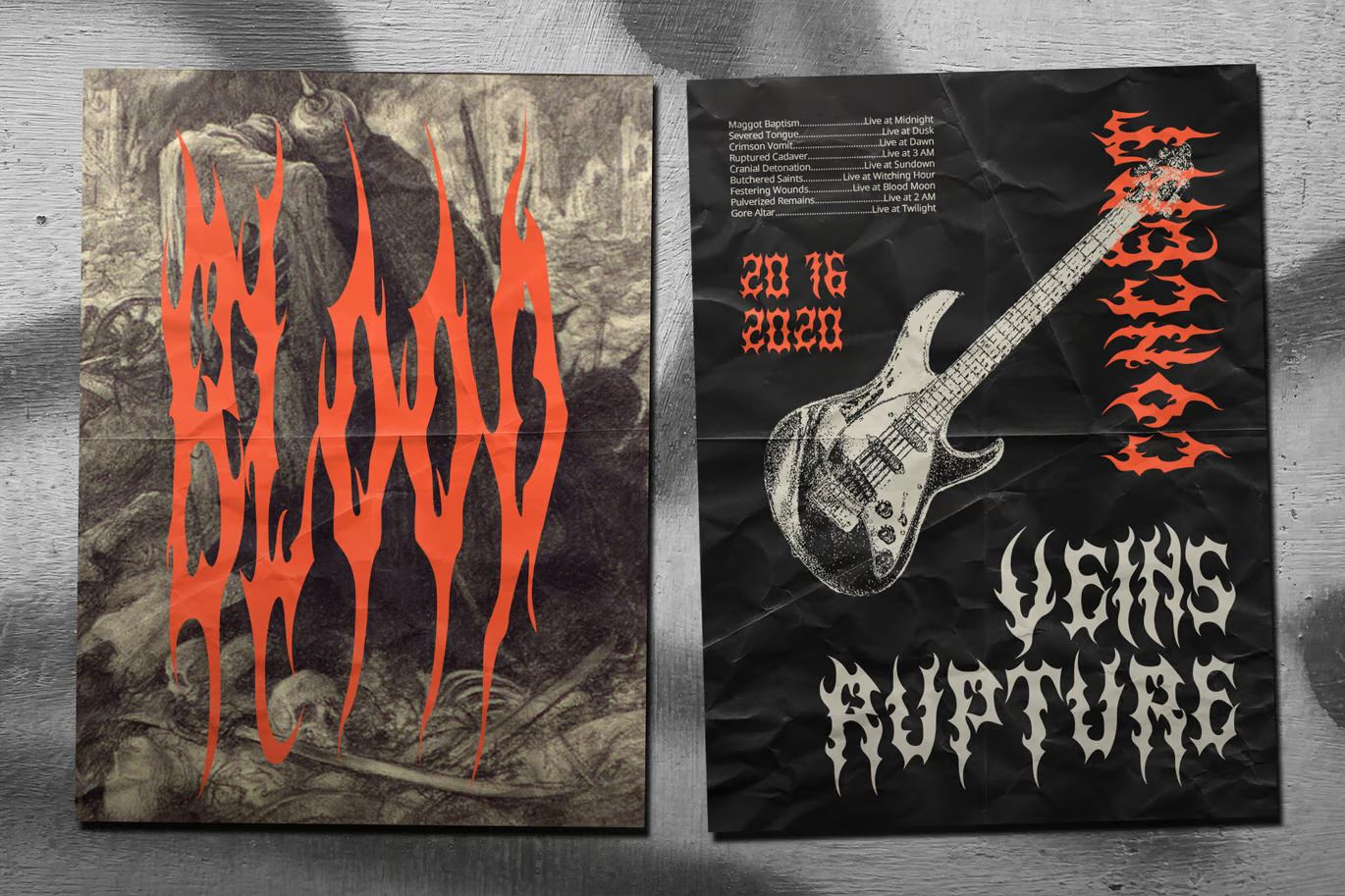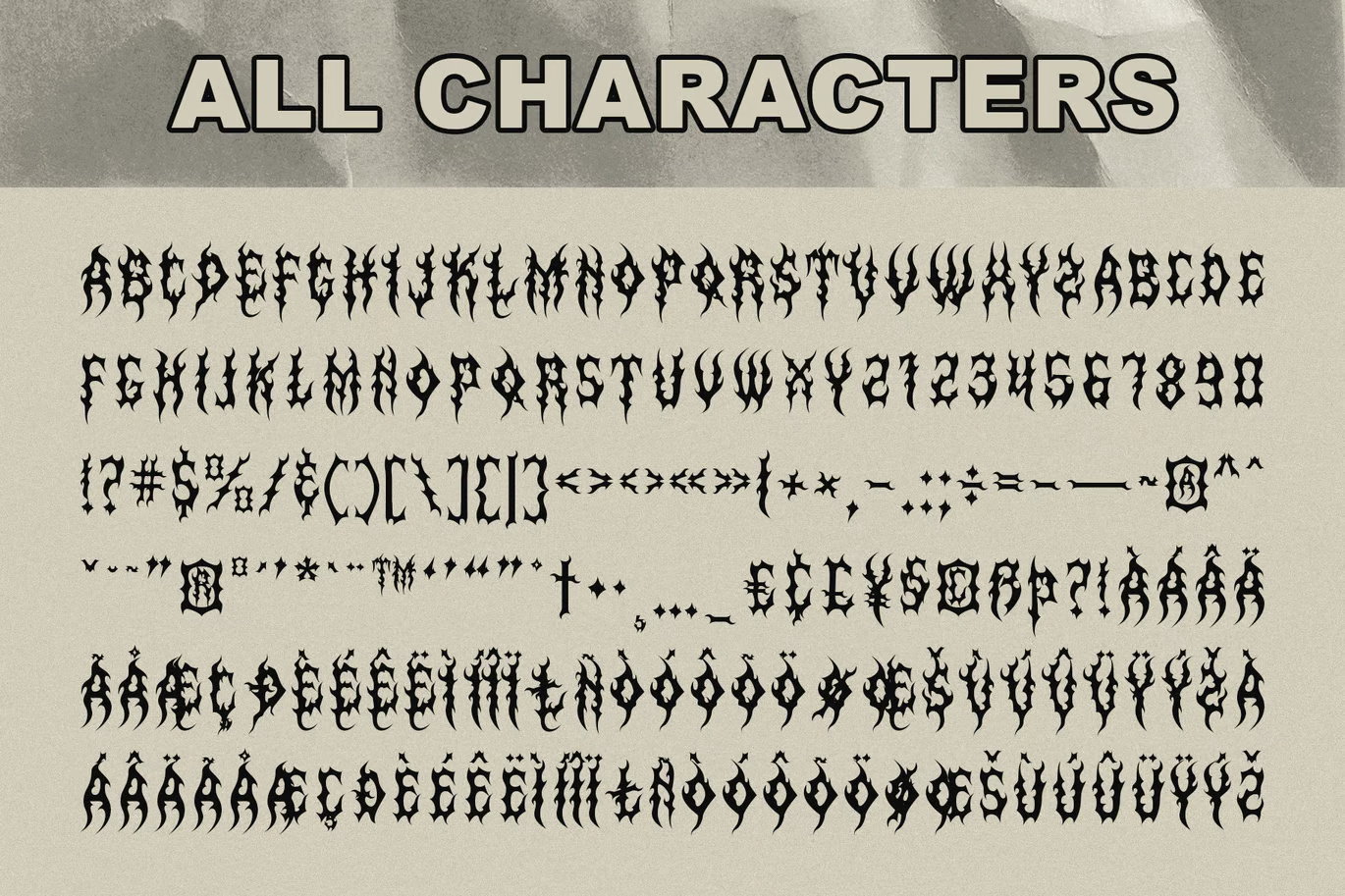
CS Wildfire looks like blackletter that has caught fire. Each stroke splits into thorns and flickers, the letters stretch tall, and the baseline is never quite level. Craft Supply Co puts orange flames behind it on the cover, which hardly seems necessary.
Two gig posters in the specimen use it for Blood and Veins Rupture, one over a skull and one beside a guitar. The full family has Regular, Italic and Reverse Italic, with accented letters. Words become hard to read fast, so use it for short band names and titles.
Best uses for CS Wildfire
- Black metal and metal band logos
- Horror film posters
- Gig flyers
- Dark streetwear and merch
- Tattoo flash
Pair CS Wildfire with a plain, sturdy font. Oswald works for dates and venues. IBM Plex Mono adds a raw, typed contrast. For a serif, try EB Garamond.
Wildfire Black Metal Decorative Font